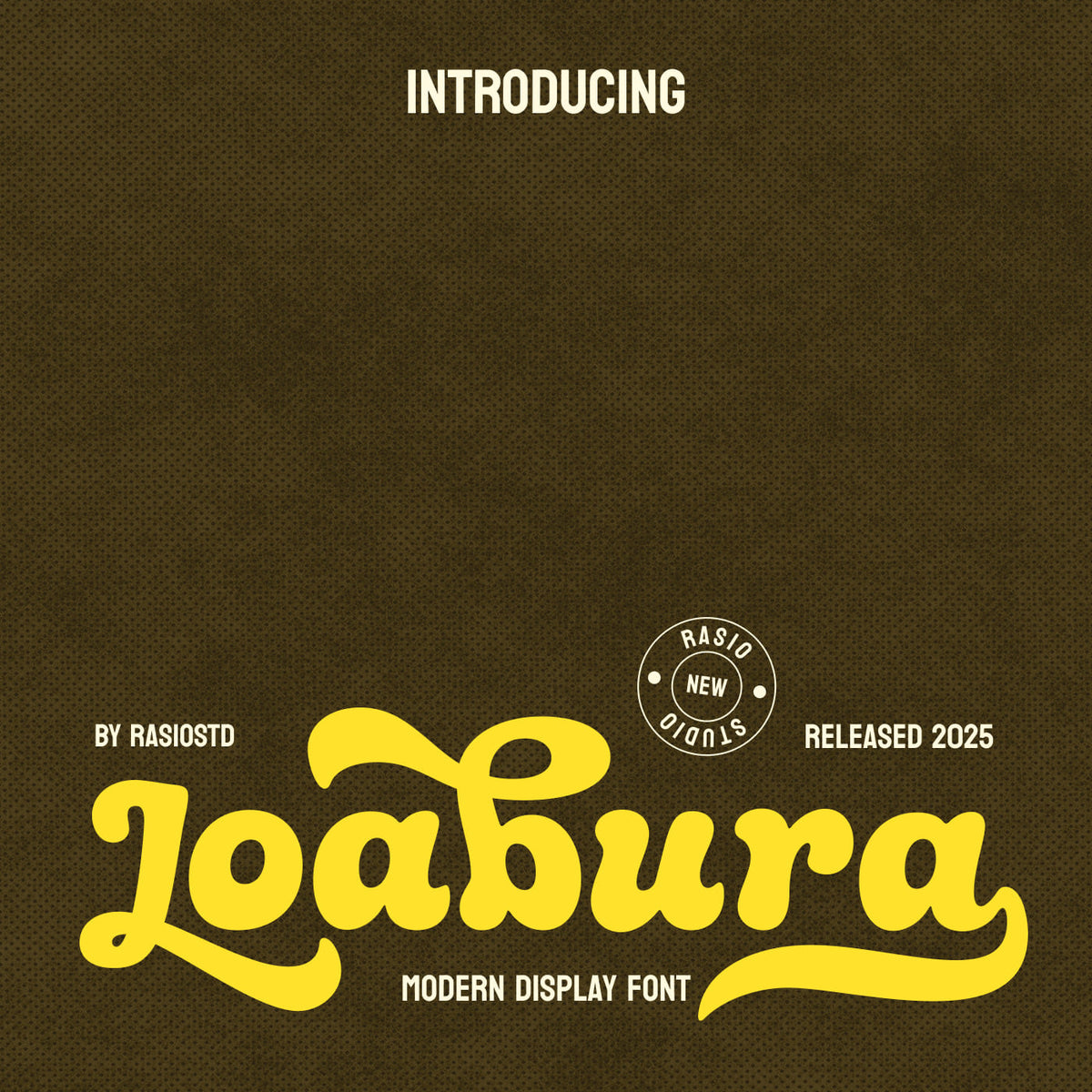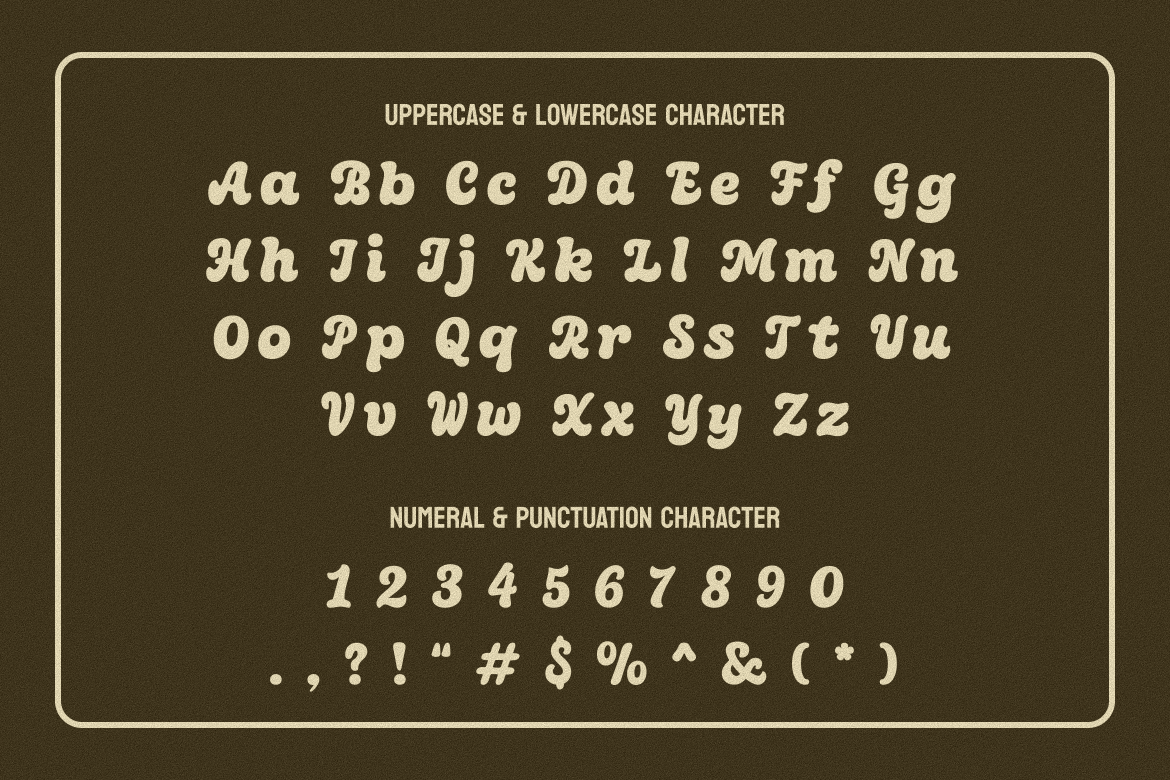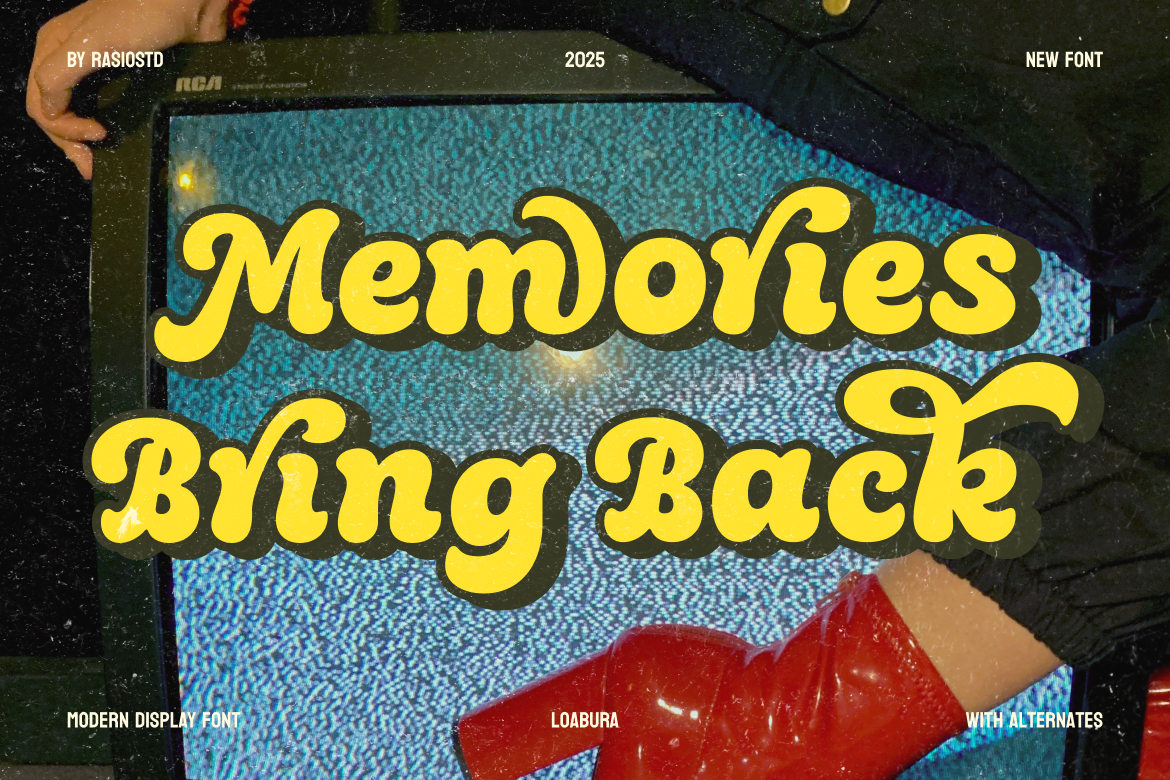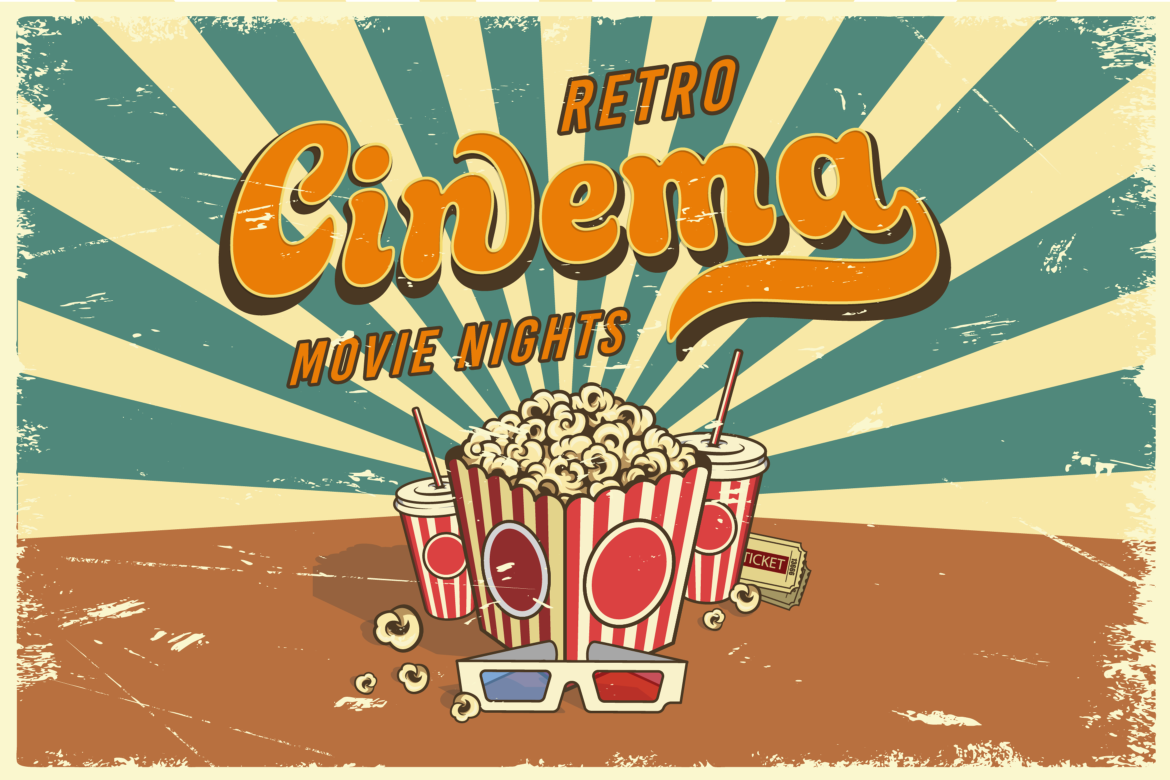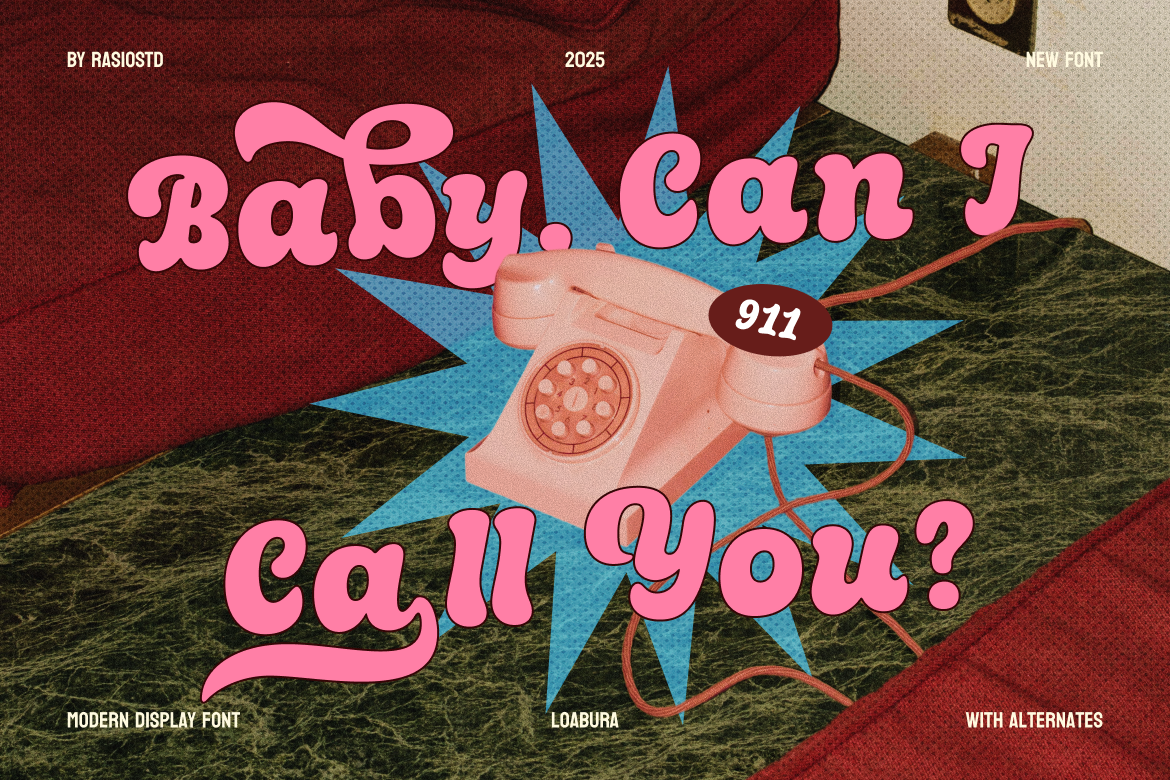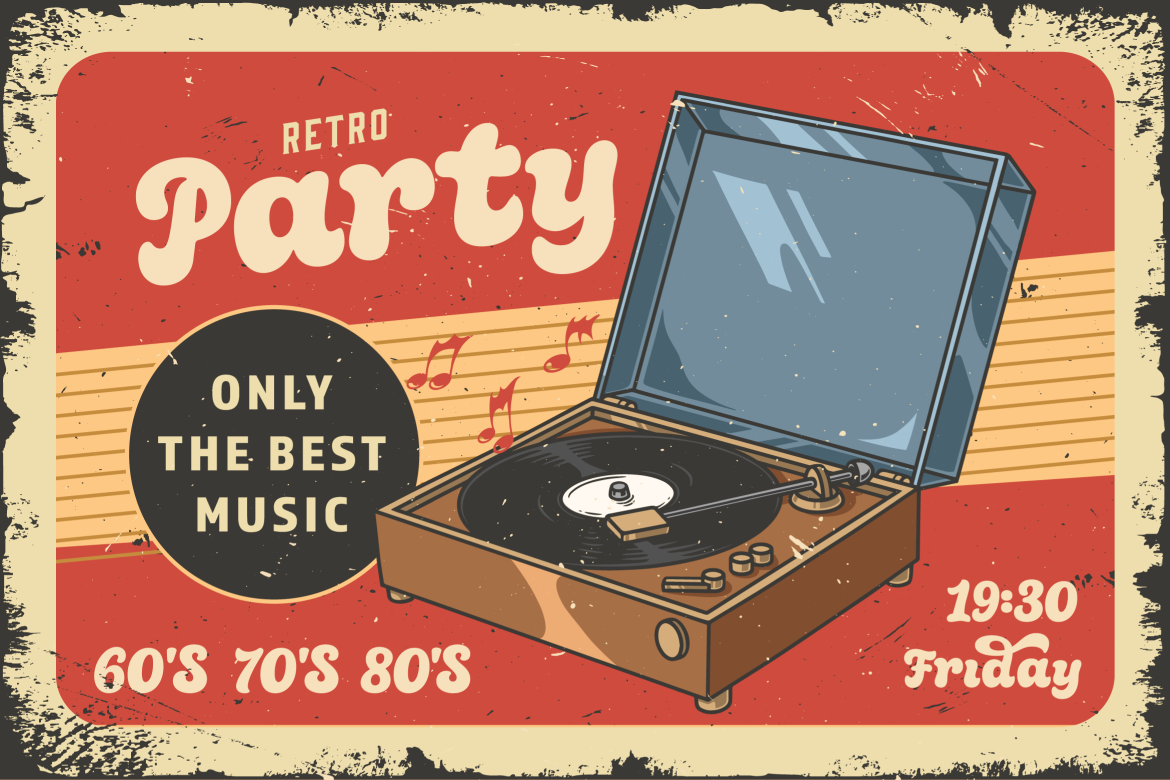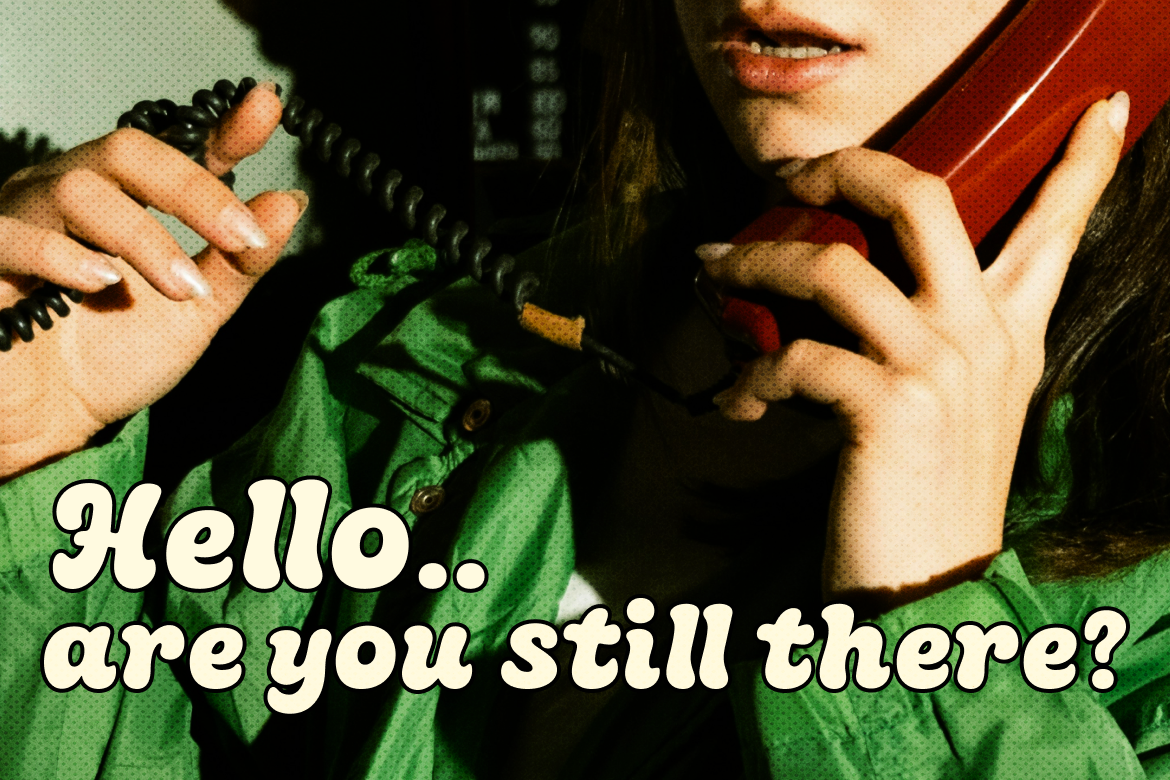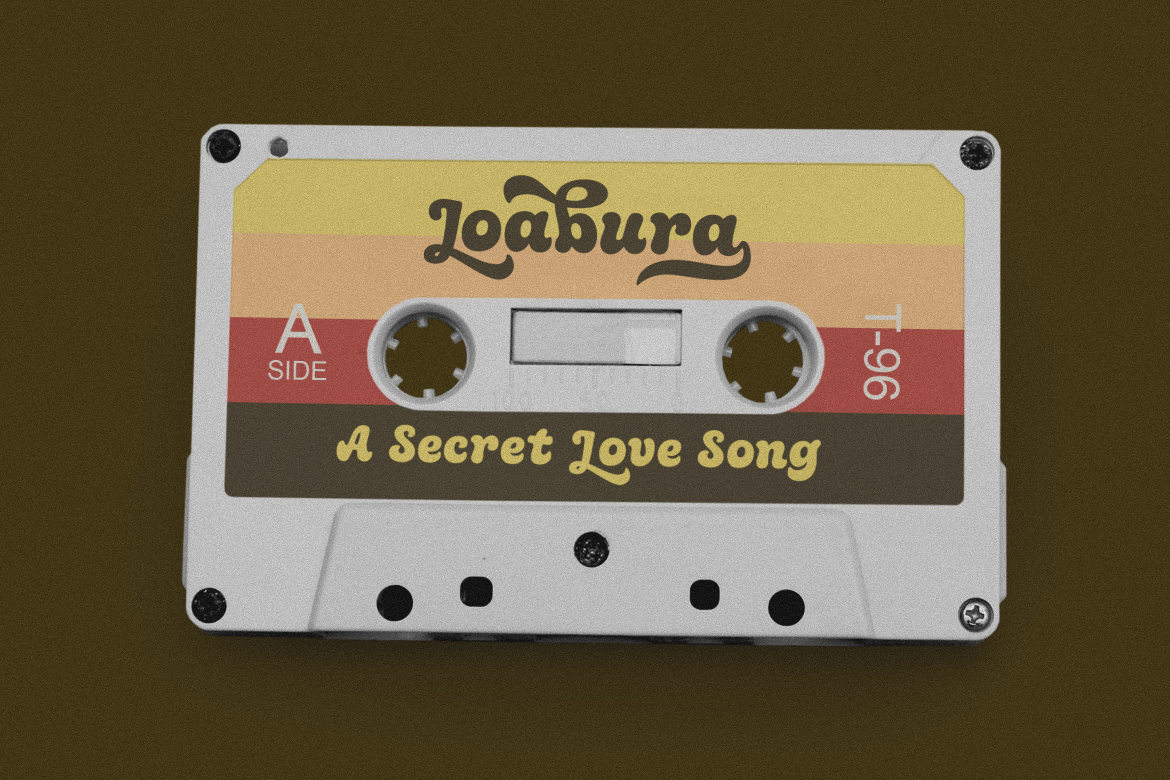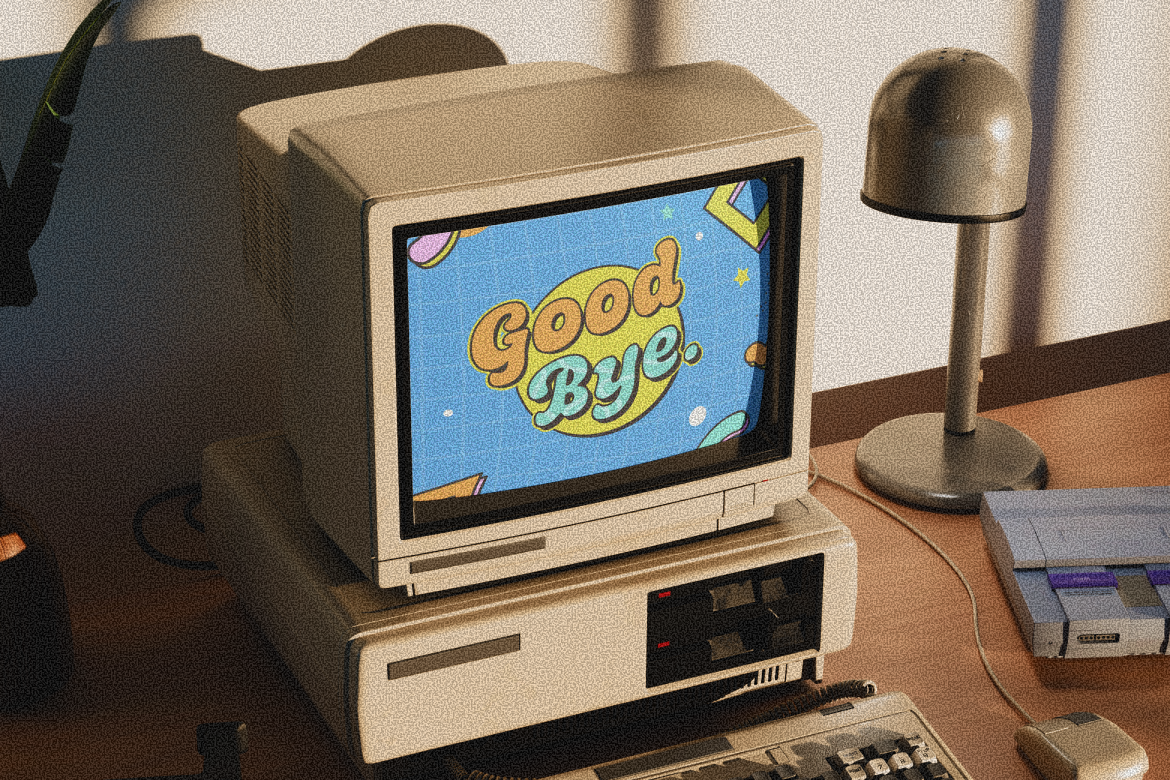
Loabura Modern Display Font
Loabura Playful Bold Font is a bold retro display typeface that blends vintage-inspired charm with a contemporary design approach. The font features chunky rounded letterforms, smooth flowing curves, playful swashes, and soft geometric proportions that create a warm, expressive, and highly recognizable typographic style. Its confident silhouette delivers excellent visual impact while maintaining clarity and readability for large-format typography.
Designed to create memorable branding and eye-catching display compositions, Loabura includes uppercase and lowercase characters, numerals, punctuation, ligatures, and stylistic alternates, providing creative flexibility for professional design projects. The typeface performs beautifully across logos, food packaging, café identities, product labels, posters, merchandise, social media graphics, and advertising materials, bringing a friendly retro personality and distinctive visual appeal to both print and digital applications.
Suitable For: Loabura is perfect for restaurant branding, coffee shop identities, bakery packaging, beverage labels, snack product branding, vintage-style posters, music festival graphics, apparel merchandise, retail promotions, logo creation, menu design, food truck branding, craft packaging, social media advertisements, YouTube thumbnails, book covers, editorial headlines, storefront signage, event invitations, and creative marketing materials that benefit from bold, retro-inspired typography.
Standard Ligatures
Loabura Modern Display Font is a bold retro display typeface featuring chunky rounded letterforms, flowing curves, and swash details. It includes uppercase and lowercase characters, numerals, punctuation, ligatures, and stylistic alternates, available in OTF, TTF, and WOFF formats.